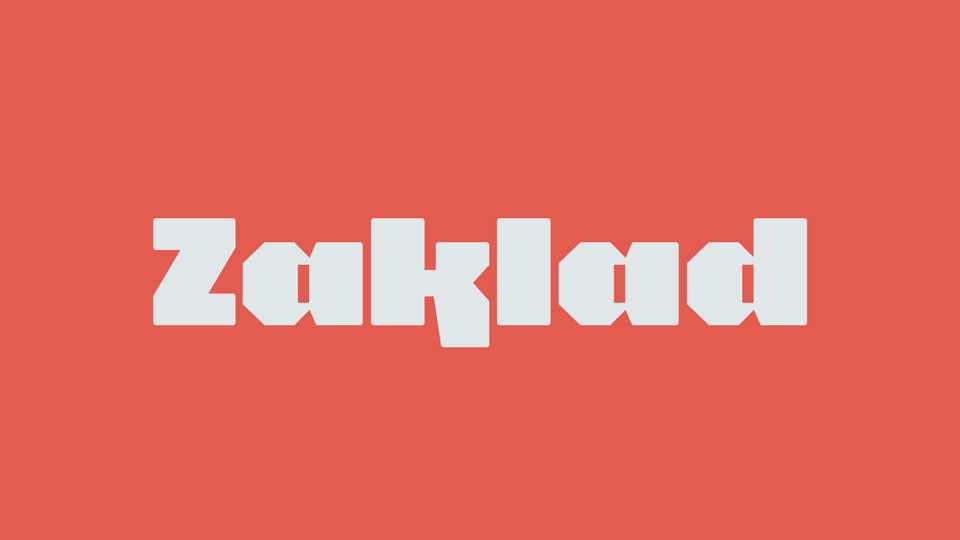
Download Zaklad font, a display typeface designed for use on signage and posters. Zaklad’s massive and sturdy construction was inspired the blocky geometrical letters from the Warsaw’s craftsmen shops.
Designer: Szymon Sznajder